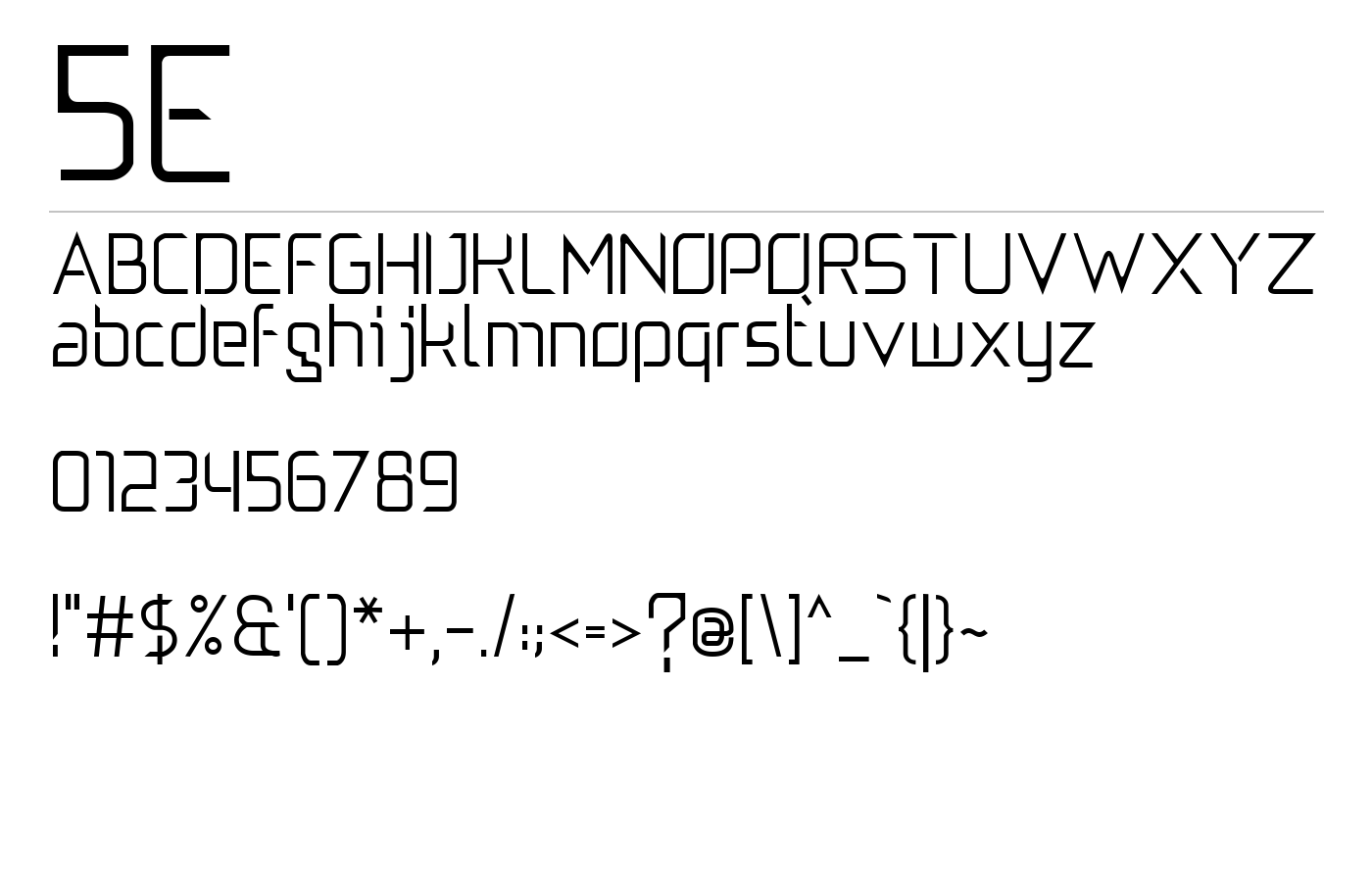
5E Font is a sleek, modern sans serif typeface with a futuristic and geometric feel. Its narrow, slightly condensed letterforms feature consistent stroke weights and angular edges that give it a technical yet minimalist style, perfect for tech brands, digital interfaces, and contemporary design projects. This font works well in headlines and logos where a clean, innovative look is desired.
5E Font